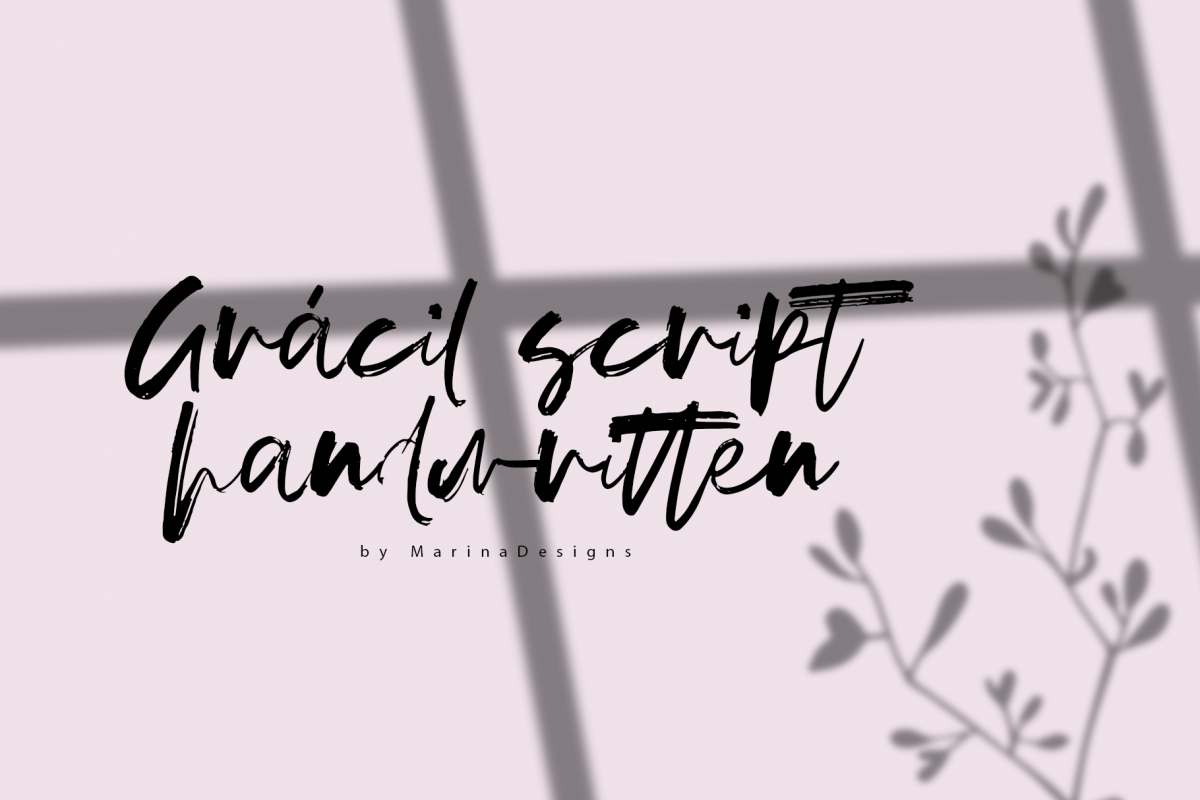
Gracil Script
Perfect for adding a elegant and unique touch to your lettering projects and branding. Every single letters have been carefully crafted to make your text looks beautiful. With lettering script style this font will perfect for many different project ex: quotes, blog header, poster, wedding, branding, logo, fashion, apparel, letter, invitation, stationery, etc.